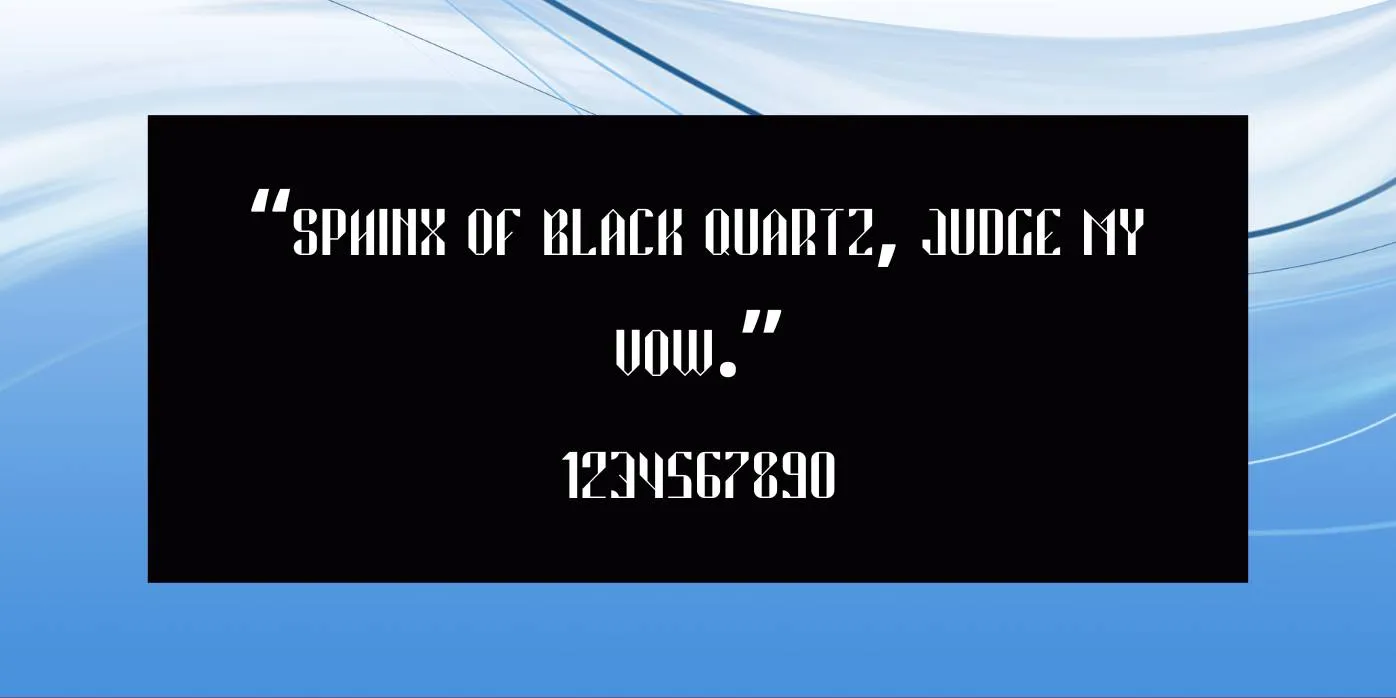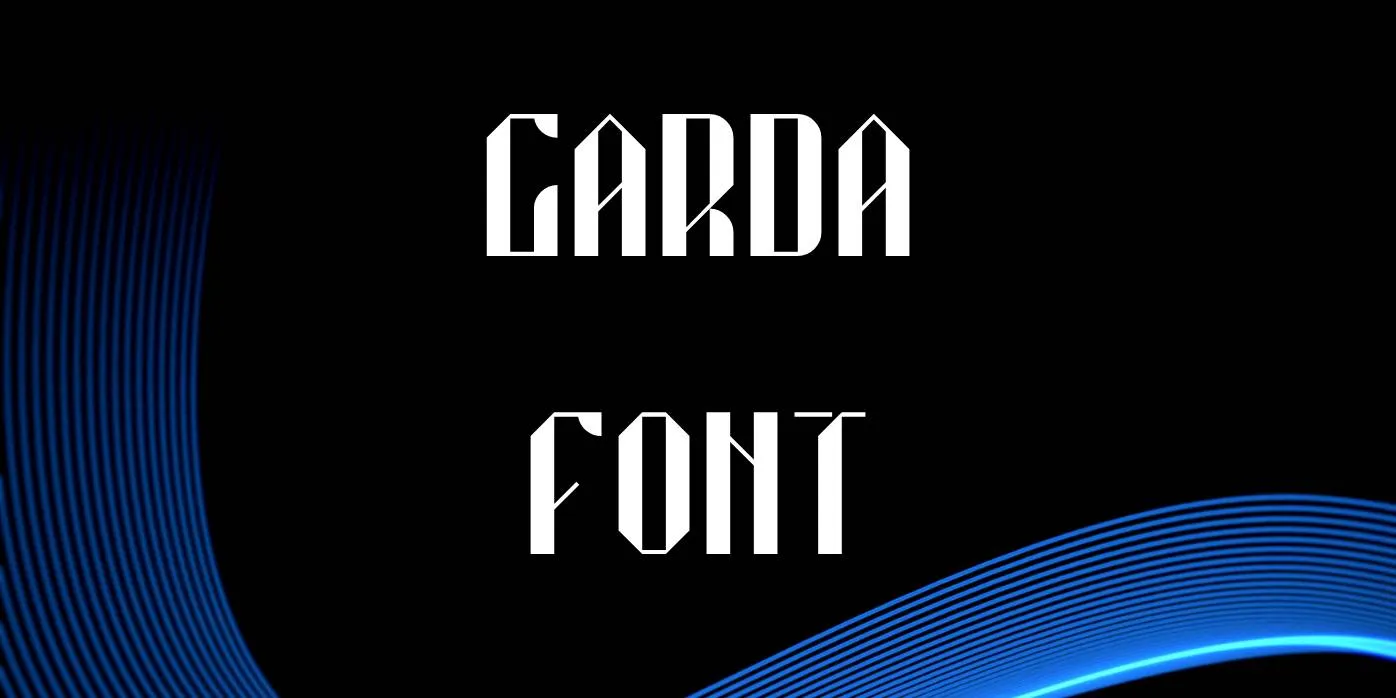
Garda Font
Garda Font is a gothic type of font. Zefix is the designer for this typeface. There are unique glyphs for this typeface that are 40 in number. This texture has one regular style. The characters of this typeface are thin, stylish, and amazing. They support only capital letters and numbers.